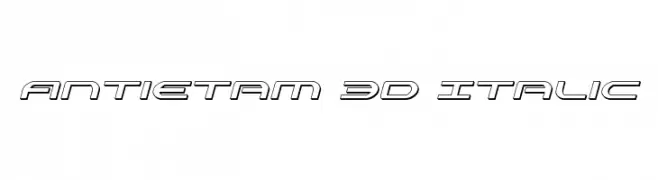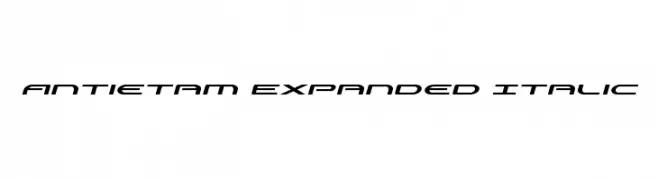
A futuristic and geometric font with consistent stroke width and rounded edges.
A futuristic, geometric font with clean lines and a modern aesthetic.
A bold, futuristic font with a 3D outlined design and geometric shapes.
A 3D italic font with outlined characters and a futuristic style.
A sleek, futuristic, and condensed font with geometric precision.
A sleek, modern, condensed italic font with uniform stroke thickness.
A futuristic, expanded font with geometric shapes and consistent stroke width.
A sleek, modern, expanded italic font with a futuristic look.
A modern, geometric, extra-condensed font with a futuristic style.